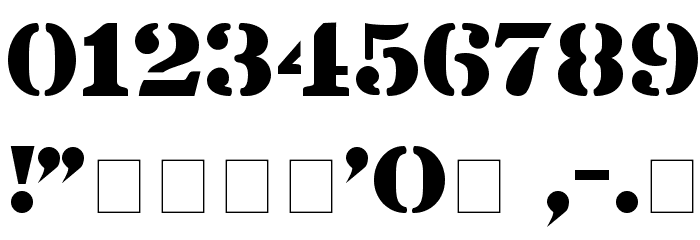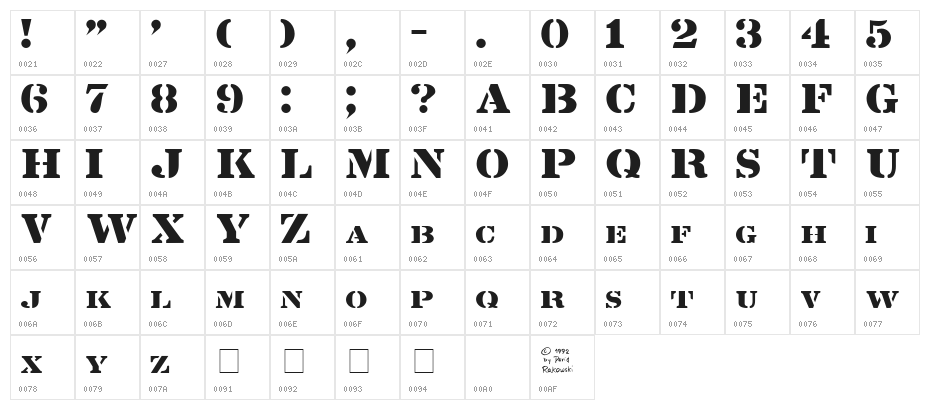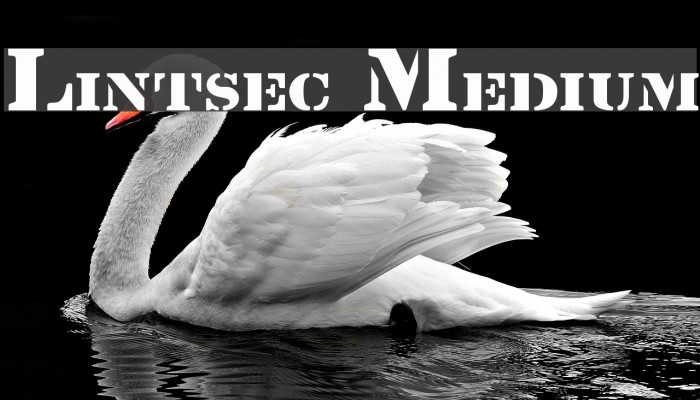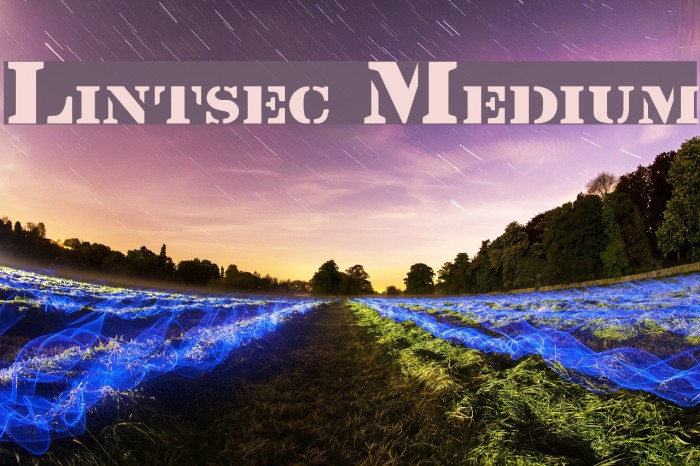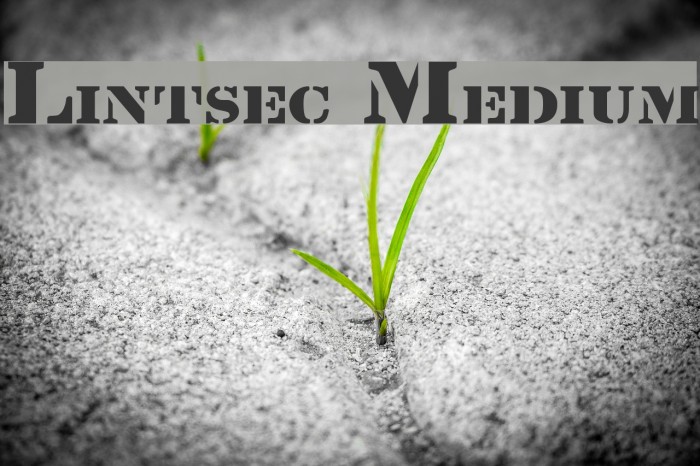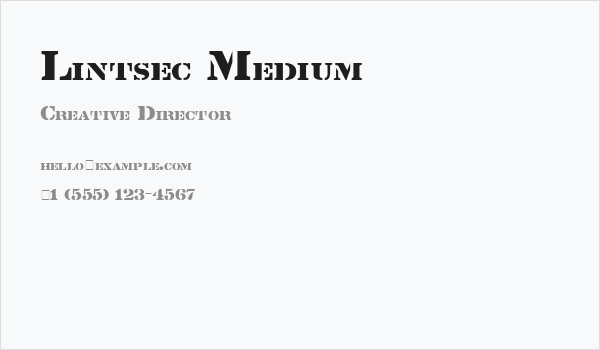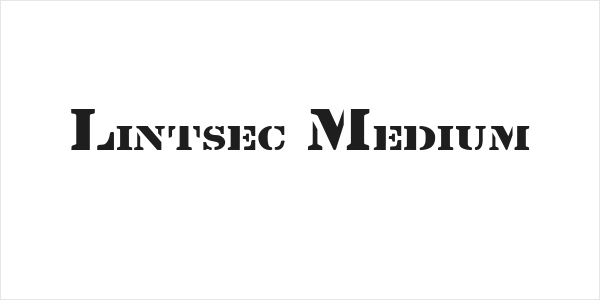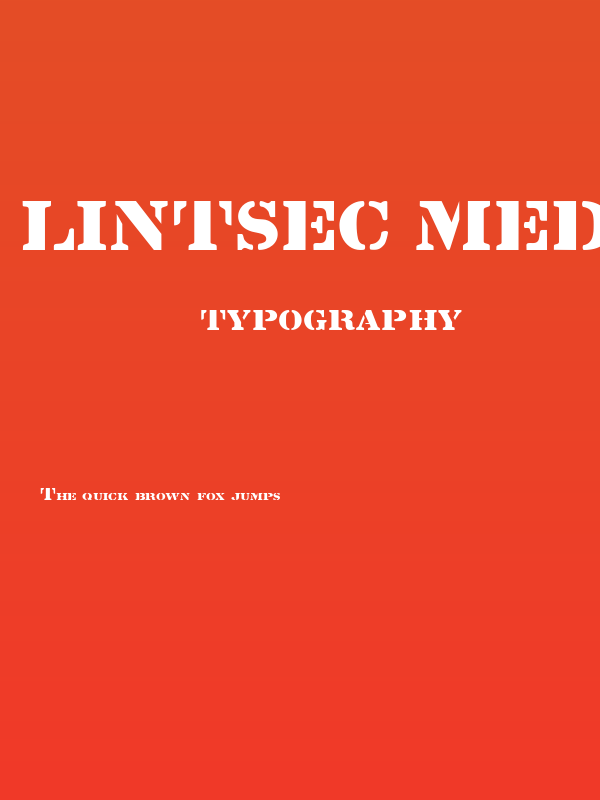
Lintsec Medium Font
Lintsec Medium Description
This font features a bold and impactful design with strong, thick strokes and a distinct stencil-like appearance. The characters are sharply defined with high contrast between thick and thin lines, giving it a robust and industrial feel. The uppercase letters are particularly striking, with a uniform height and width that create a cohesive look. The numerals are equally bold, maintaining the same strong presence as the alphabet. Special characters are included, adding versatility to the font's usage. The overall style is modern and decorative, making it suitable for attention-grabbing headlines or branding projects.
| Overall Style | Modern, Industrial |
| Use Case | Headlines, Branding, Posters |
| Proposed Projects | Ideal for branding, posters, headlines, and any project requiring a strong visual impact. |